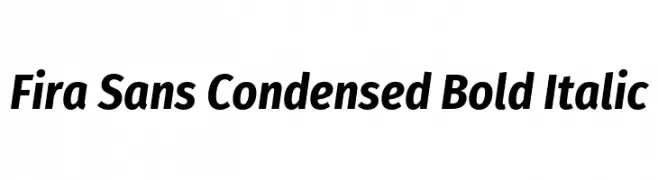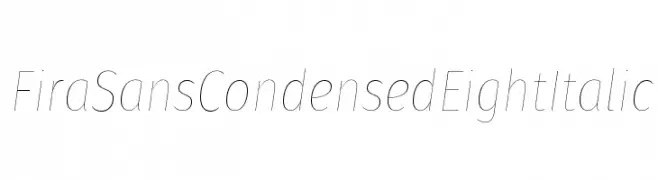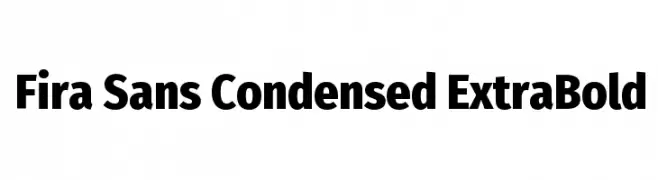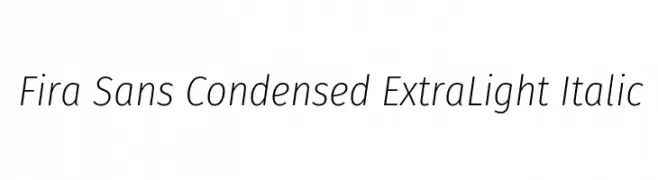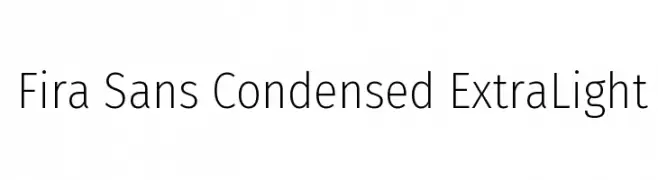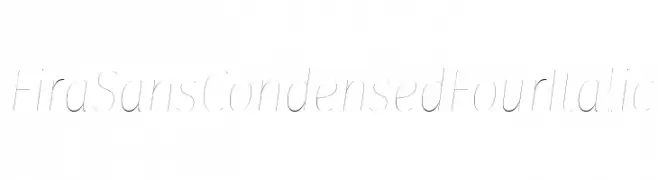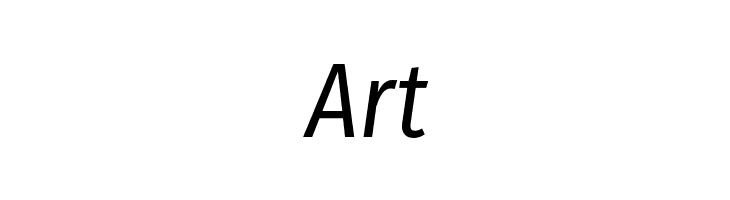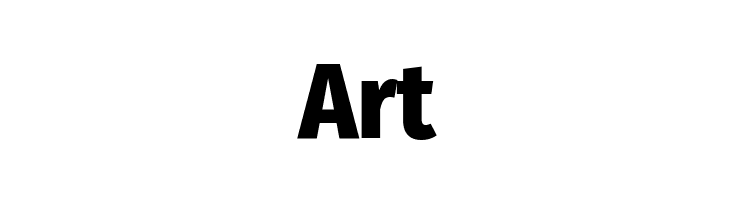
A sleek, modern italic font with thin strokes and a minimalist design.
A modern, italic sans-serif font with smooth curves and excellent readability.
A modern, italic sans-serif font with clean lines and balanced proportions.
A modern, light sans-serif font with excellent readability and elegant curvature.
A modern, light sans-serif font with clean lines and excellent readability.
A modern, light, italic sans-serif font with sleek and elegant characters.
A modern, light, and italic sans-serif font with clean lines and elegant slant.
A clean, modern sans-serif font with excellent readability and versatility.
A modern, clean sans-serif typeface with balanced proportions and open forms.
A modern, versatile typeface with clean lines and balanced proportions.
A modern, italic sans-serif font with medium weight and balanced proportions.
A modern sans-serif font with an italic slant and medium weight.